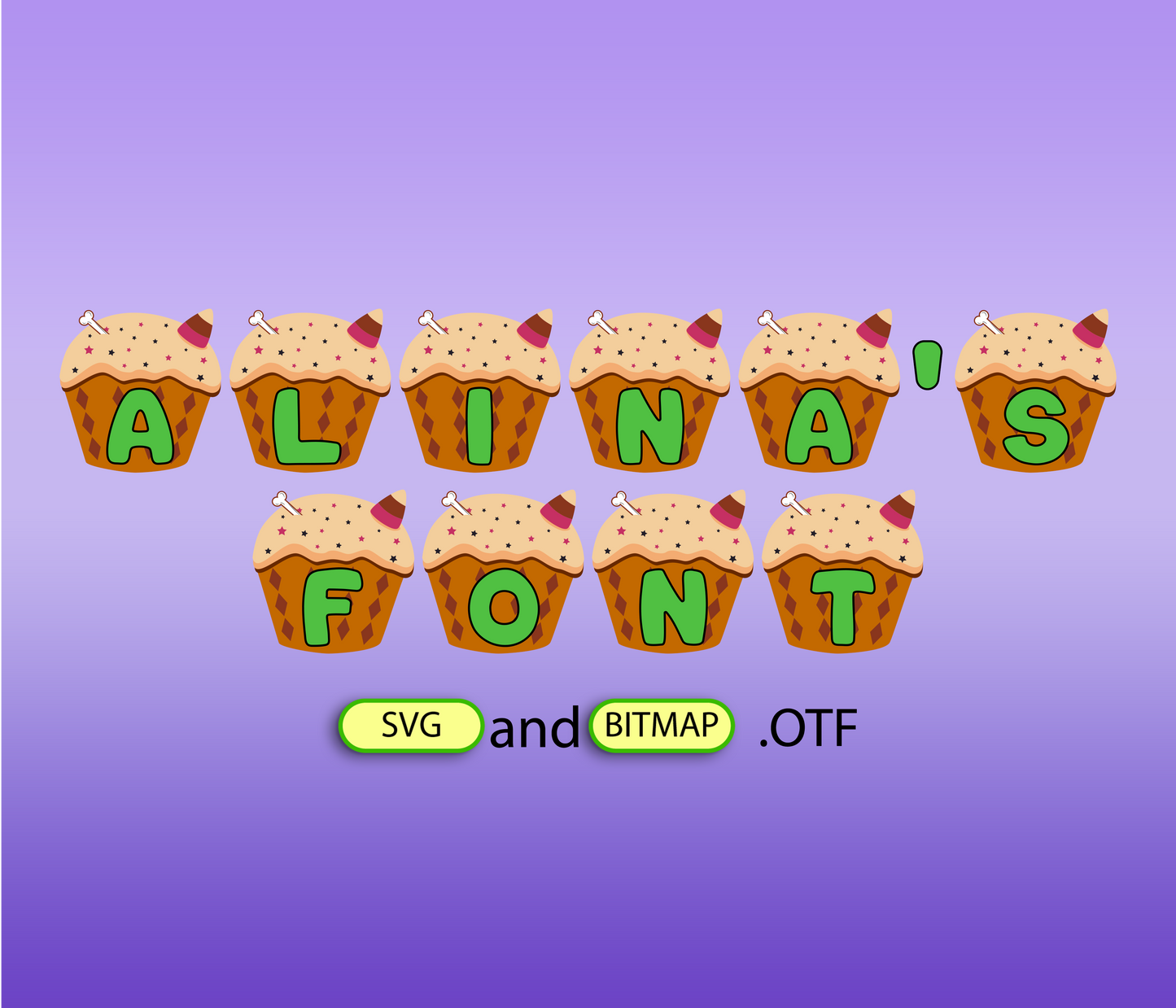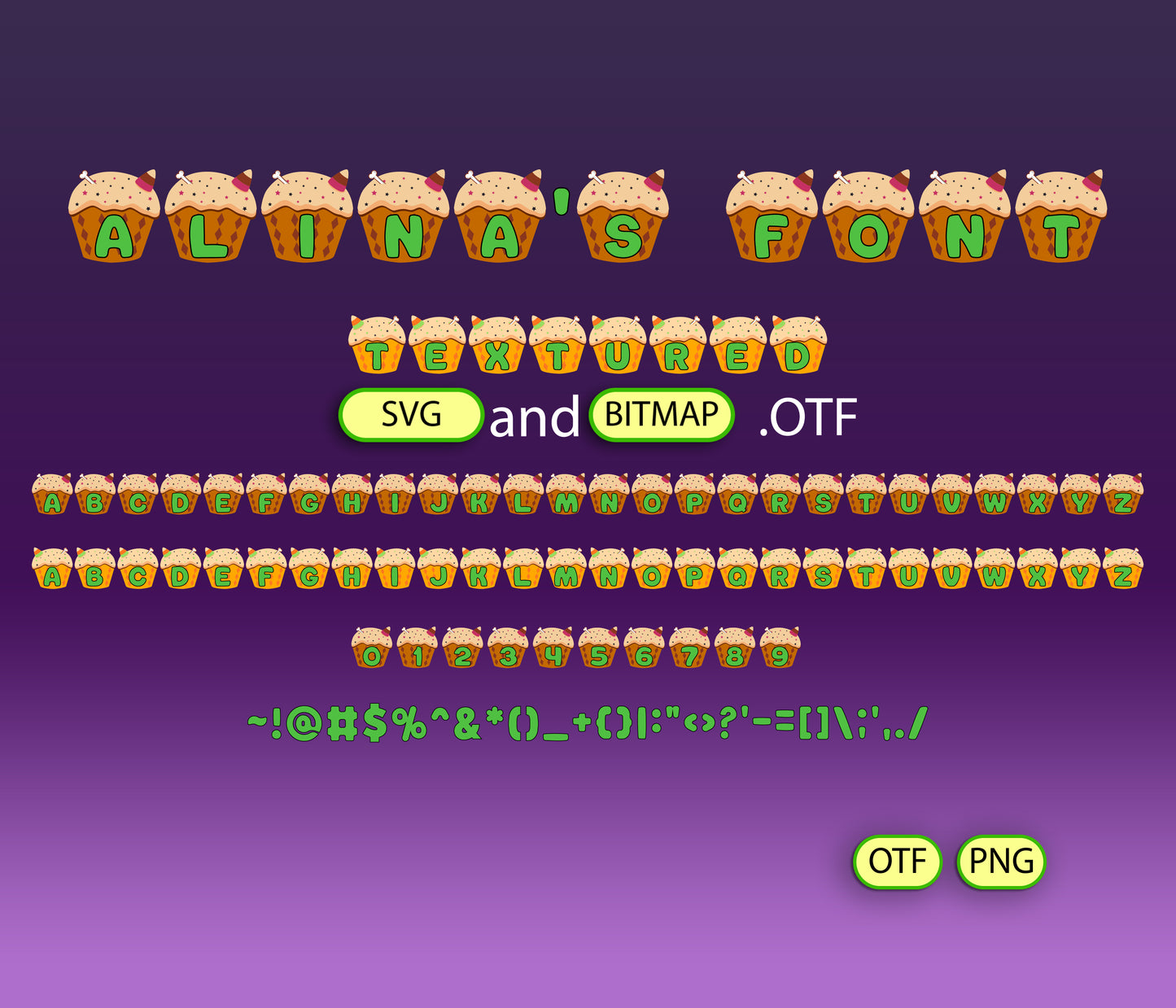
Spooky Cupcake Pattern Font
Spooky Cupcake Font Textured Haunted Bakery
Step into the eerie world of cursed confections with our Spooky Cupcake font, capturing the essence of bewitched baking and sugary dread. Perfect for dessert events, ghostly pastry designers, sweet content creators, and creative professionals, this font brings the haunting, frosted spirit of Halloween desserts to your projects. Create bone-chilling invitations, pastry-themed merchandise, or digital content with the creamy, frightening energy of ultimate dessert scares.
Our Spooky Cupcake font features fluffy, dessert-inspired shapes and bold characters reflecting the sweet yet menacing aesthetic of haunted dessert horror scenarios. Ideal for:
- Dessert Events: Create attention-grabbing invites, posters, and banners for Halloween parties, ghostly bakery experiences, and sweet-themed gatherings
- Pastry Design: Perfect for book covers, movie promotions, and dessert-themed party accessories that capture confectionery terror
- Digital Media: Enhance websites, blogs, and social media with dramatic headers and graphics that express sweetness and eerie atmosphere
- Entertainment Content: Add authentic character to Halloween materials, dessert designs, and promotional materials for pastry events
- Personal Projects: Bring sweet-spooky edge to scrapbooking, DIY crafts, and home decor inspired by the aesthetics of haunted confections
Our Spooky Cupcake font includes textured and non-textured variants, ensuring compatibility with all software, including Canva. This feature allows easy incorporation into designs for users of all skill levels.